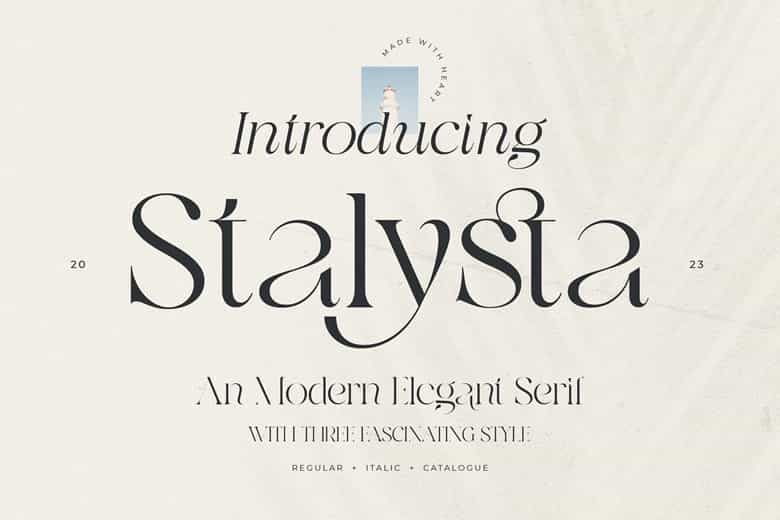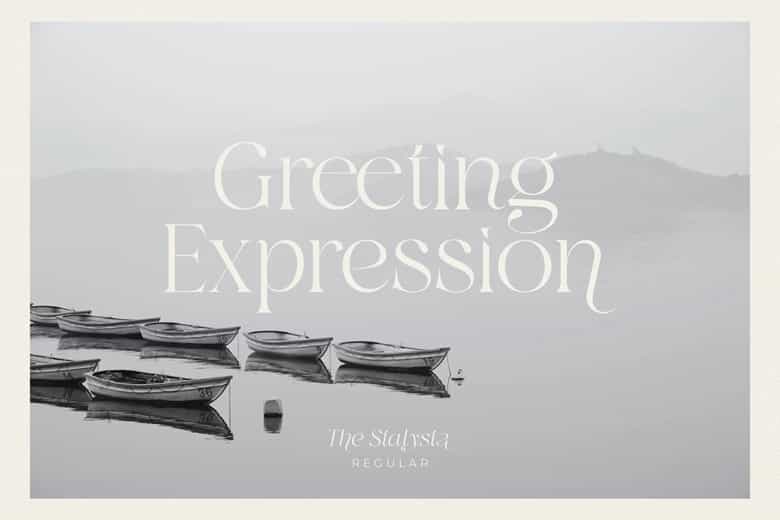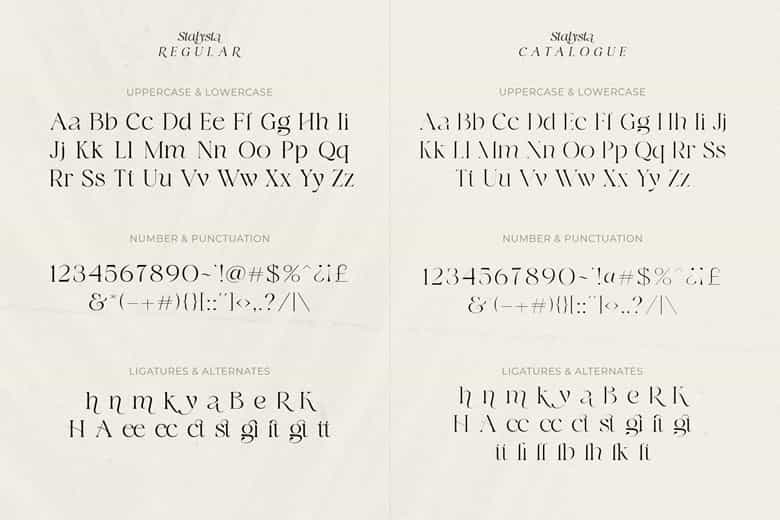
Stalysta is an editorial serif font. While the uppercase format is stunning the lowercase options also perform admirably. For branding and poster design along with editorial work and headlines Stalysta fits perfectly.